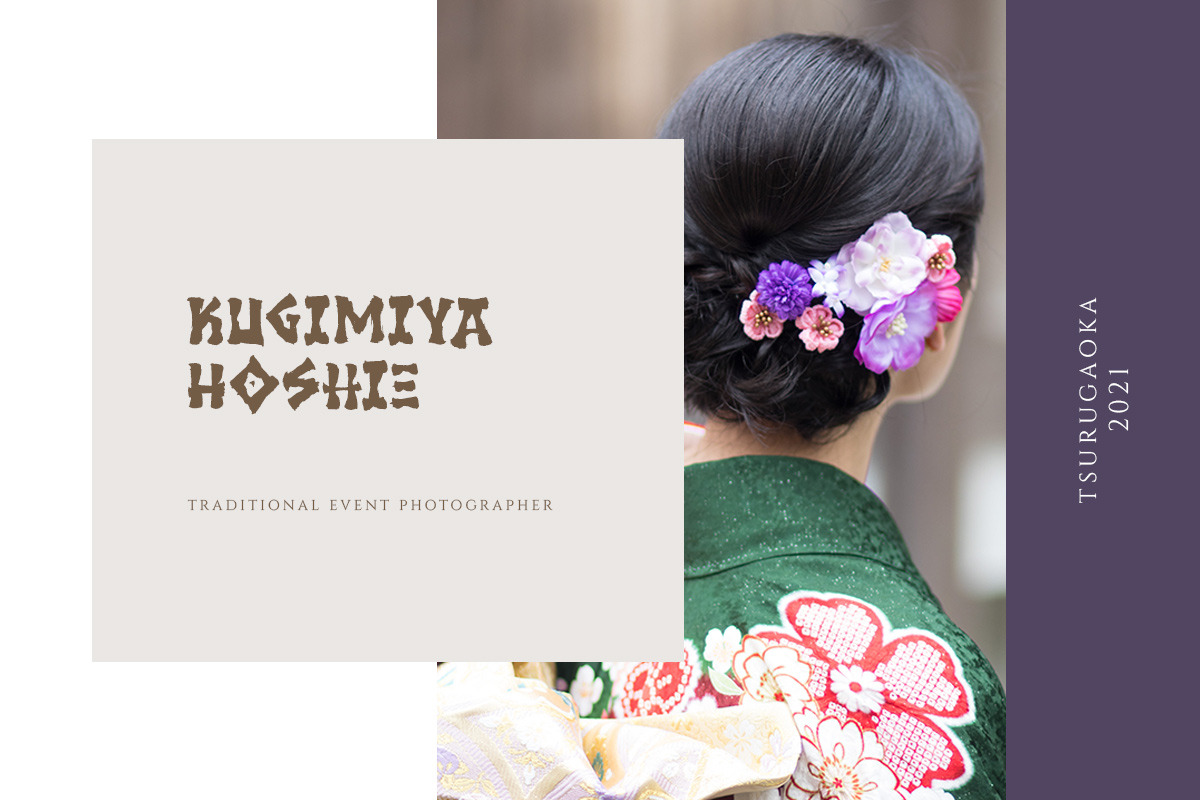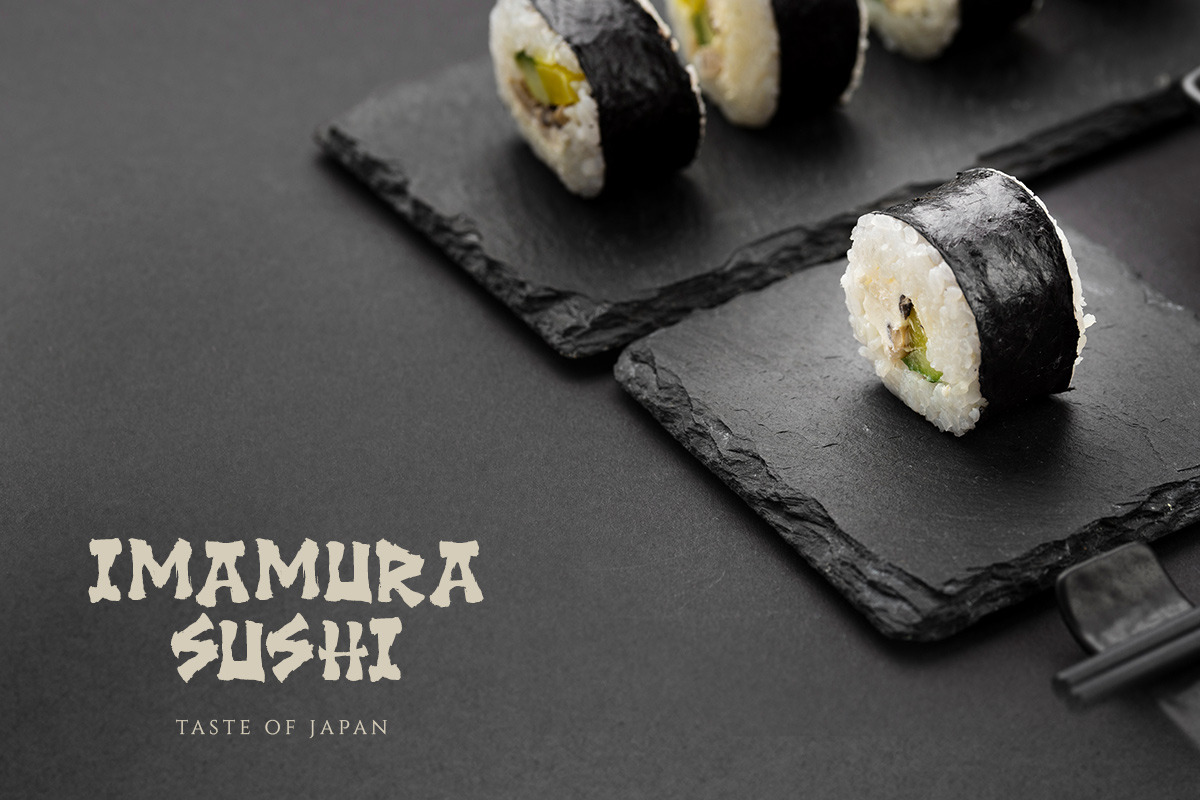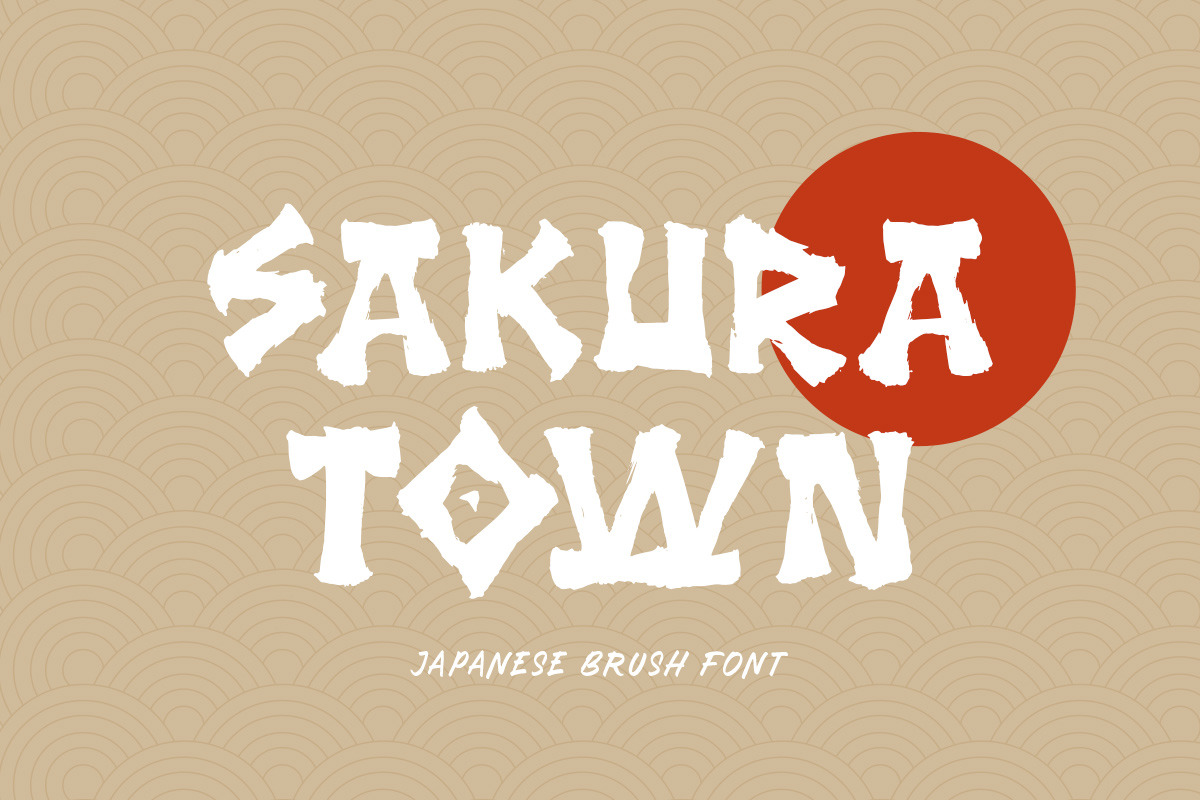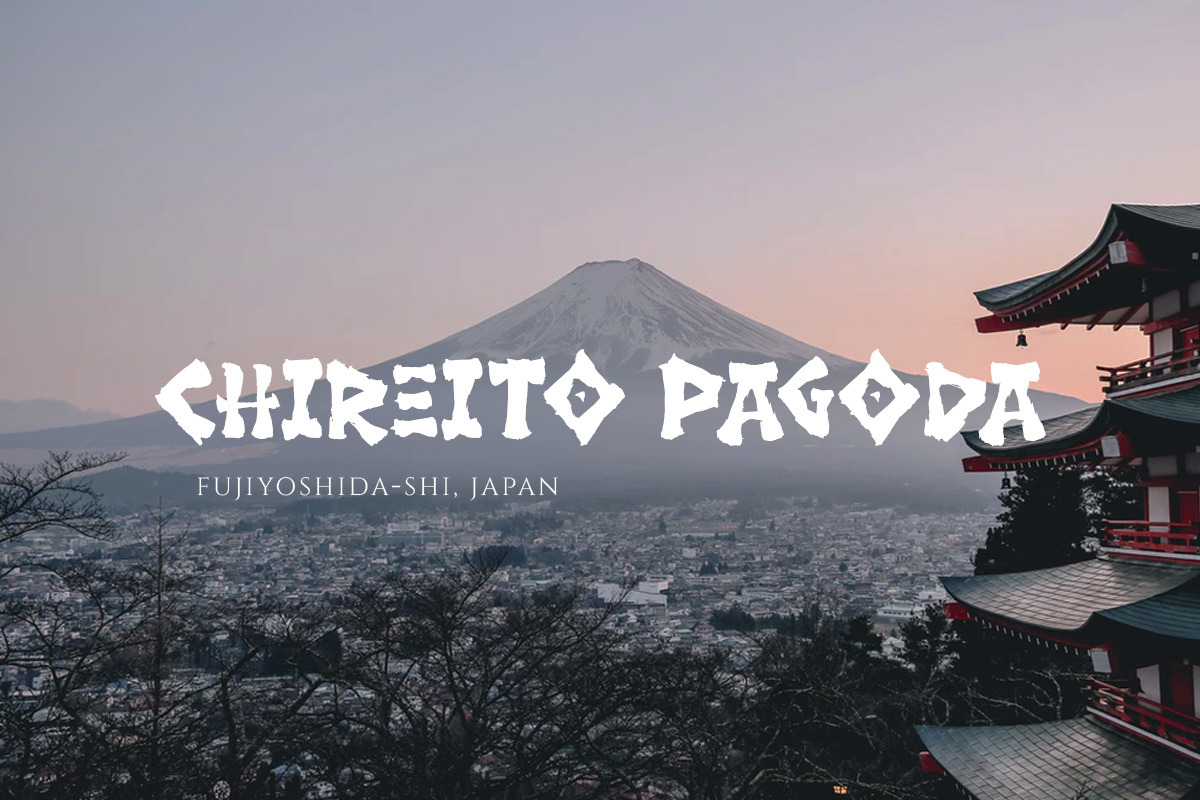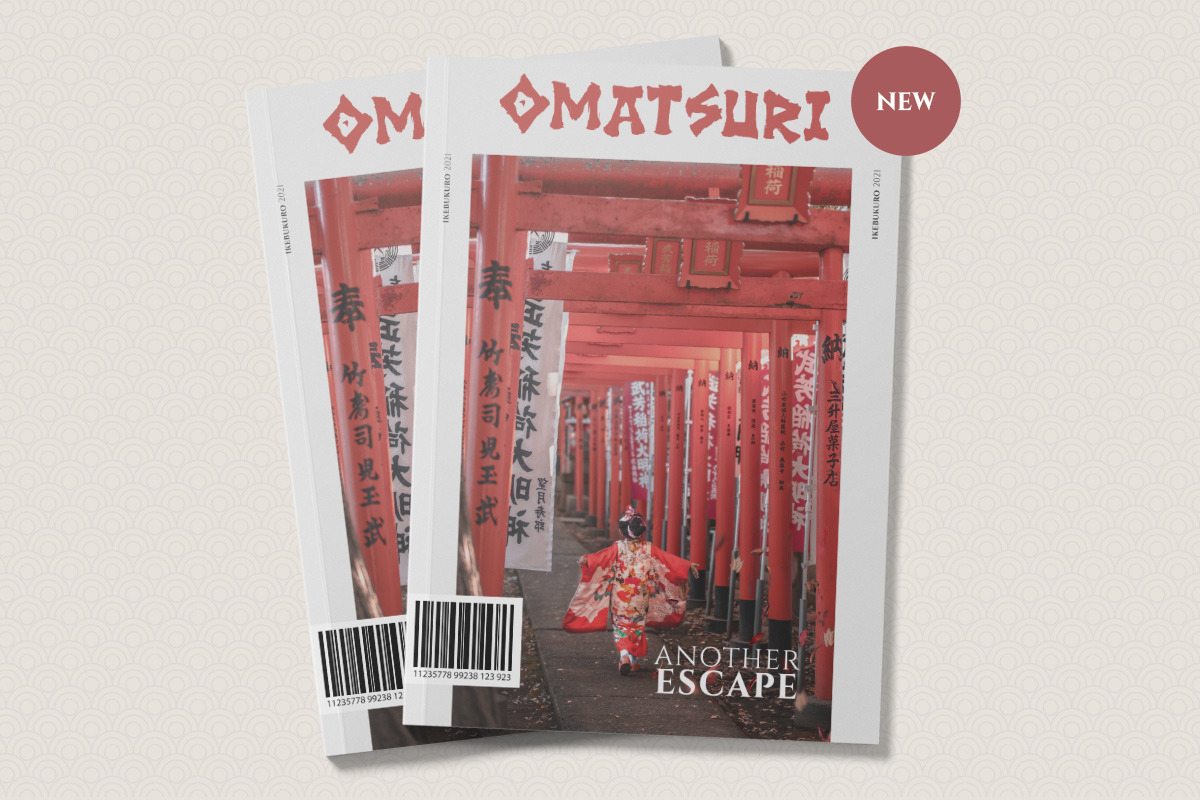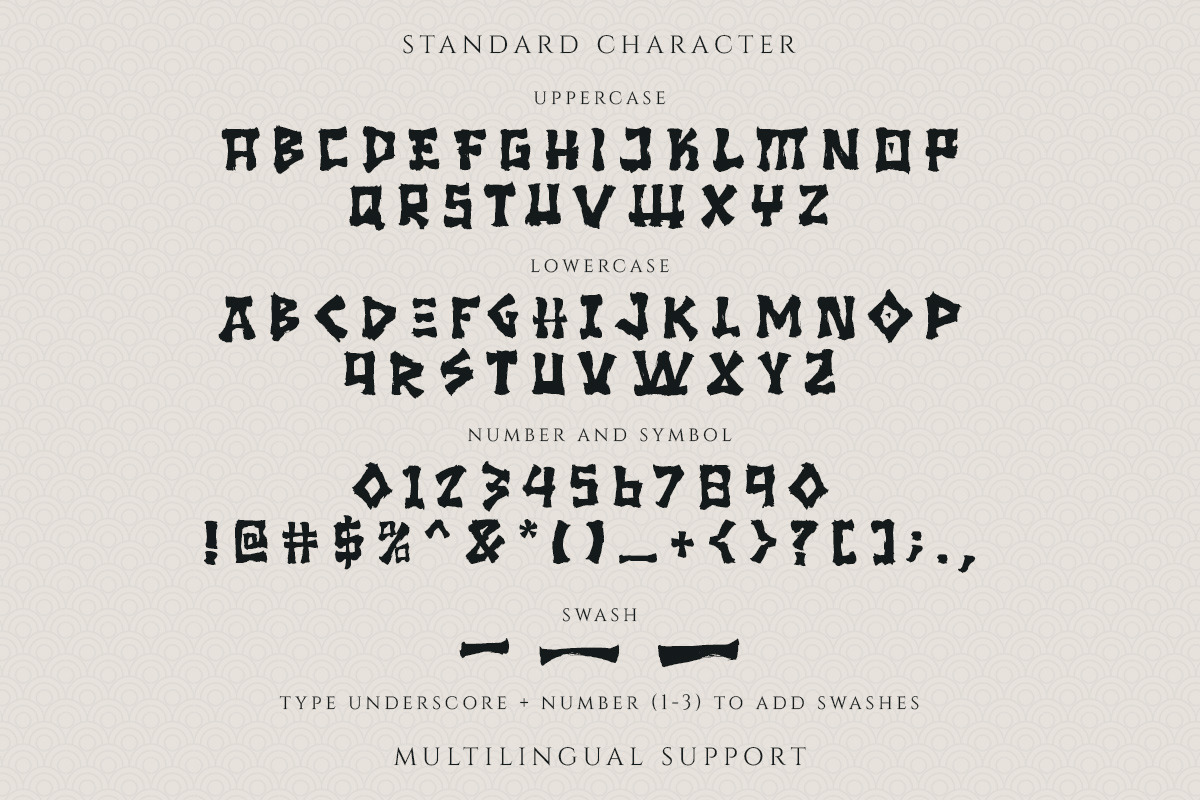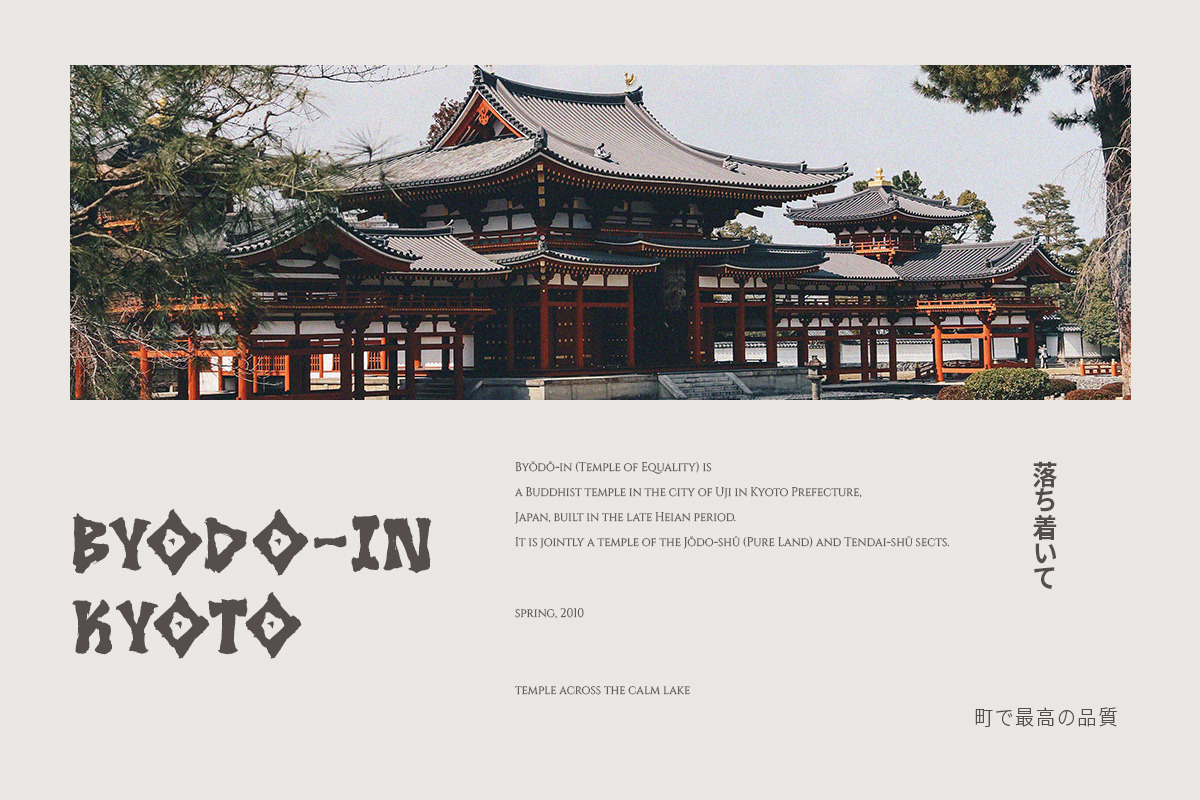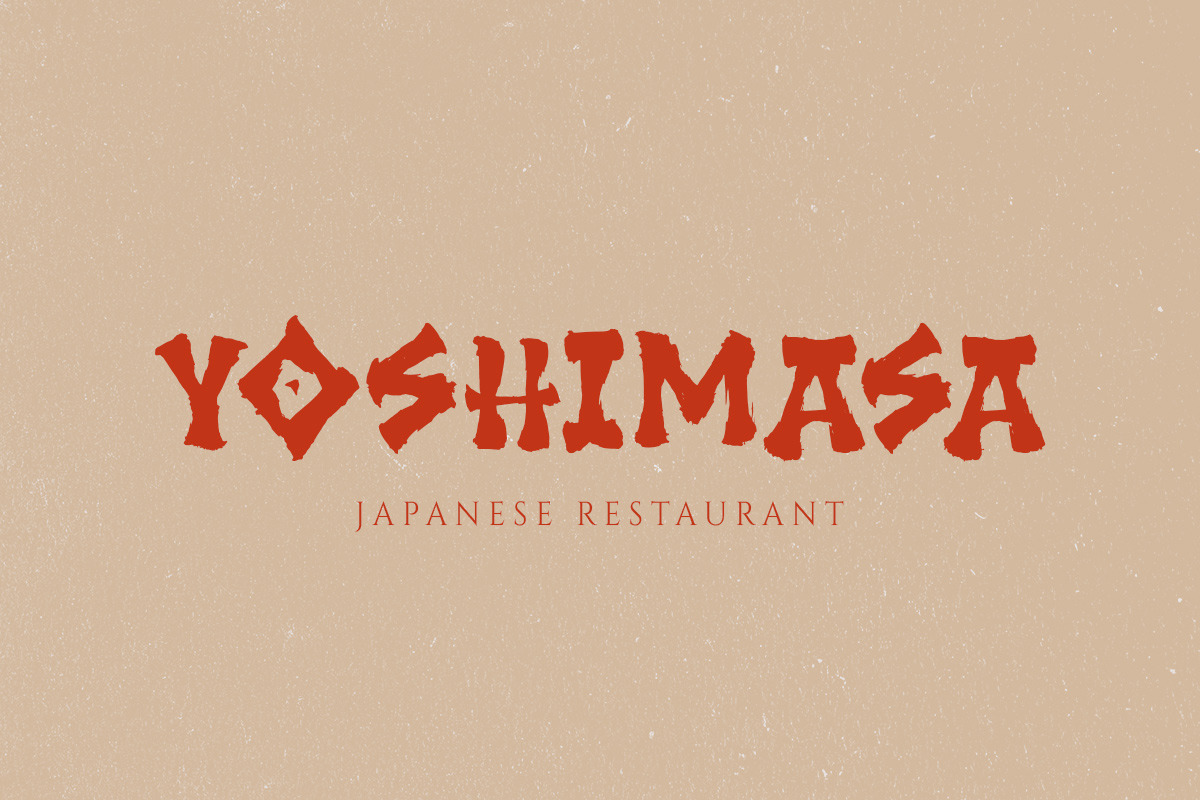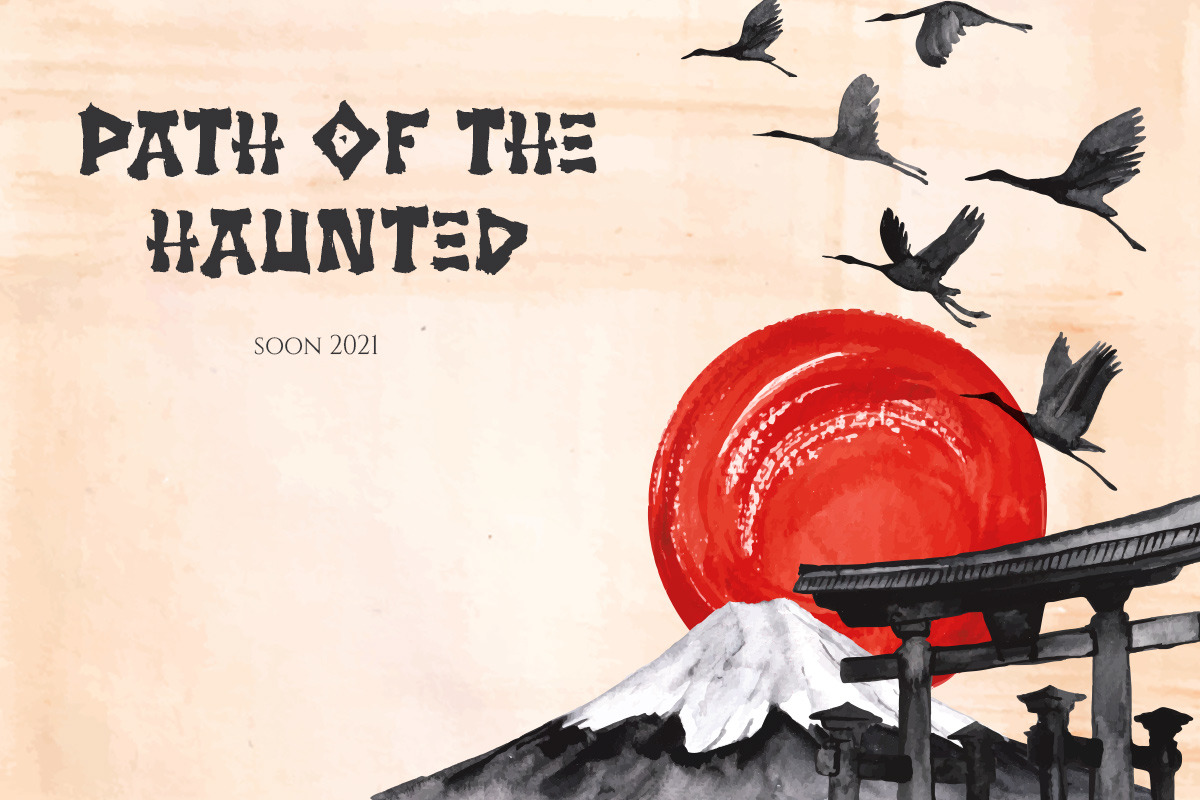
Sakura Town - Brush Typeface
Sakura Town is a display typeface inspired by japanese type brush. This type of font perfectly made to be applied especially in logo, and the other various formal forms such as invitations, labels, logos, magazines, books, greeting / wedding cards, packaging, fashion, make up, stationery, novels, labels or any type of advertising purpose.
- multilingual & swash